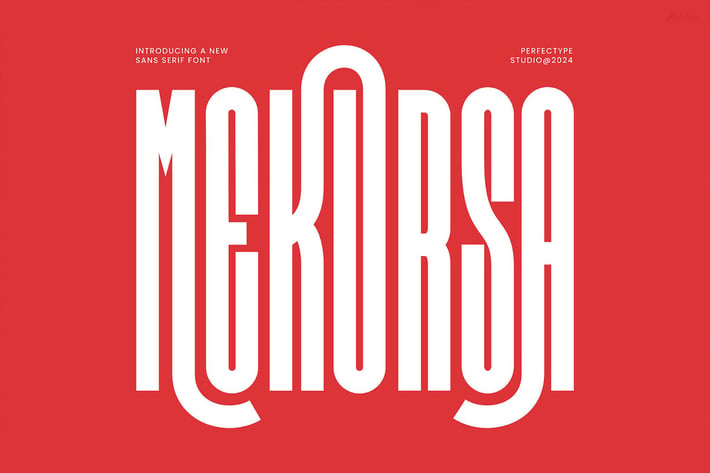
Mekursa Modern Futuristic Ligature Sans Serif Font
Mekursa is a modern and futuristic sans serif font designed with unique ligatures that add character and style. First, this font combines clean lines with smooth curves to create a fresh, modern look. Because of this, it works well for brands and projects that want a bold yet approachable style.
Moreover, Mekursa is highly versatile. You can use it for logos, headlines, packaging, websites, and more. In addition, its ligature features give it a distinctive flow, making text stand out while staying readable. So, it is perfect for creative and digital designs that need a bit of personality.
Furthermore, Mekursa has a balanced structure. The letter shapes keep clarity even at smaller sizes. This means it fits well for both display text and longer content. Its smooth style pairs well with other fonts, especially simple sans serifs and clean serifs. Besides, the font’s modern vibe makes it ideal for tech startups, fashion brands, and digital media.
Another advantage is its combination of geometric form and subtle curves. As a result, Mekursa feels futuristic but friendly at the same time. This balance helps your message come across clearly and attract attention. In fact, the ligature details add a handcrafted touch that makes the font unique without losing professionalism.
To sum up, here are the main benefits of Mekursa:
- Modern and futuristic design
- Unique ligatures for style and flow
- Clear and balanced letter shapes
- Versatile for branding, web, print
- Fits tech, fashion, and digital projects
- Easy to read at all sizes
- Pairs well with other fonts
Overall, Mekursa is a great choice for those who want a clean sans serif with a creative twist. This way, your designs will look fresh, modern, and full of personality.
Moreover, Mekursa is highly versatile. You can use it for logos, headlines, packaging, websites, and more. In addition, its ligature features give it a distinctive flow, making text stand out while staying readable. So, it is perfect for creative and digital designs that need a bit of personality.
Furthermore, Mekursa has a balanced structure. The letter shapes keep clarity even at smaller sizes. This means it fits well for both display text and longer content. Its smooth style pairs well with other fonts, especially simple sans serifs and clean serifs. Besides, the font’s modern vibe makes it ideal for tech startups, fashion brands, and digital media.
Another advantage is its combination of geometric form and subtle curves. As a result, Mekursa feels futuristic but friendly at the same time. This balance helps your message come across clearly and attract attention. In fact, the ligature details add a handcrafted touch that makes the font unique without losing professionalism.
To sum up, here are the main benefits of Mekursa:
- Modern and futuristic design
- Unique ligatures for style and flow
- Clear and balanced letter shapes
- Versatile for branding, web, print
- Fits tech, fashion, and digital projects
- Easy to read at all sizes
- Pairs well with other fonts
Overall, Mekursa is a great choice for those who want a clean sans serif with a creative twist. This way, your designs will look fresh, modern, and full of personality.